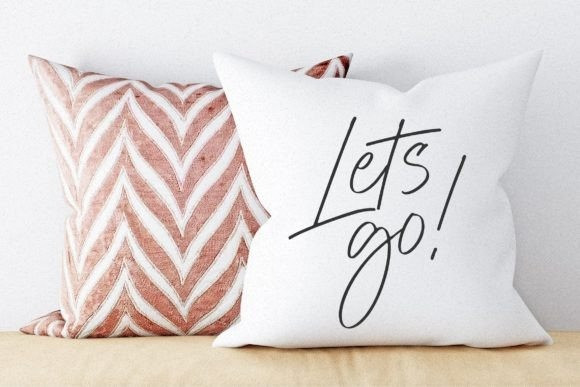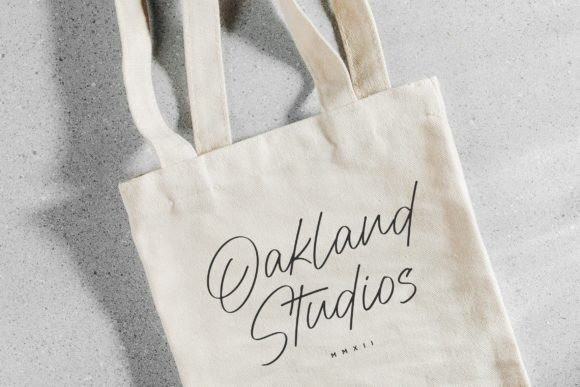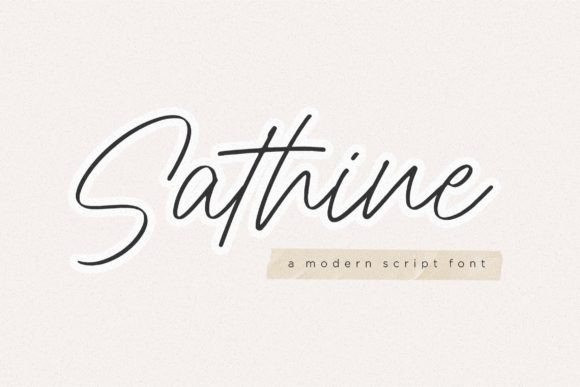
Sathine Font
Sathine Handwritten Font is a script font that looks minimalist and elegant with unique curves and a flowing style. Sathine is perfect for product packaging, branding project, magazines, social media, weddings, or just used to express words above the background.